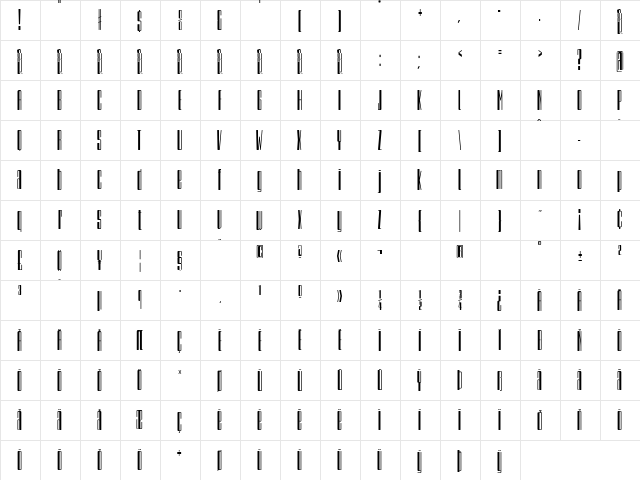
a sogra Ruth Extra-condensed
| Foundry | deFharo |
| Designer | Fernando Haro |
Design Context for a sogra Ruth Typeface
a sogra Ruth is a composed and adaptable typeface that performs quietly and consistently across a wide range of design contexts. Its narrow stance lets it pack a punch even in space-constrained designs.